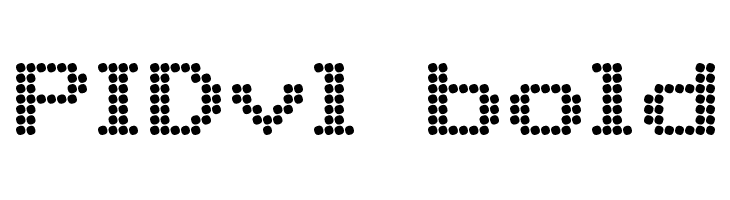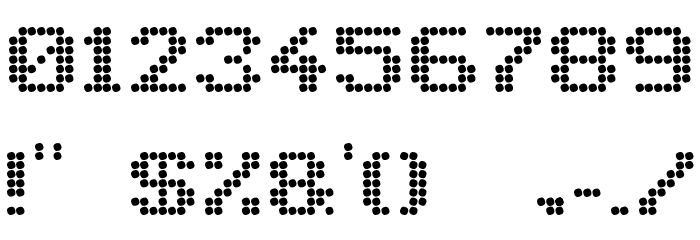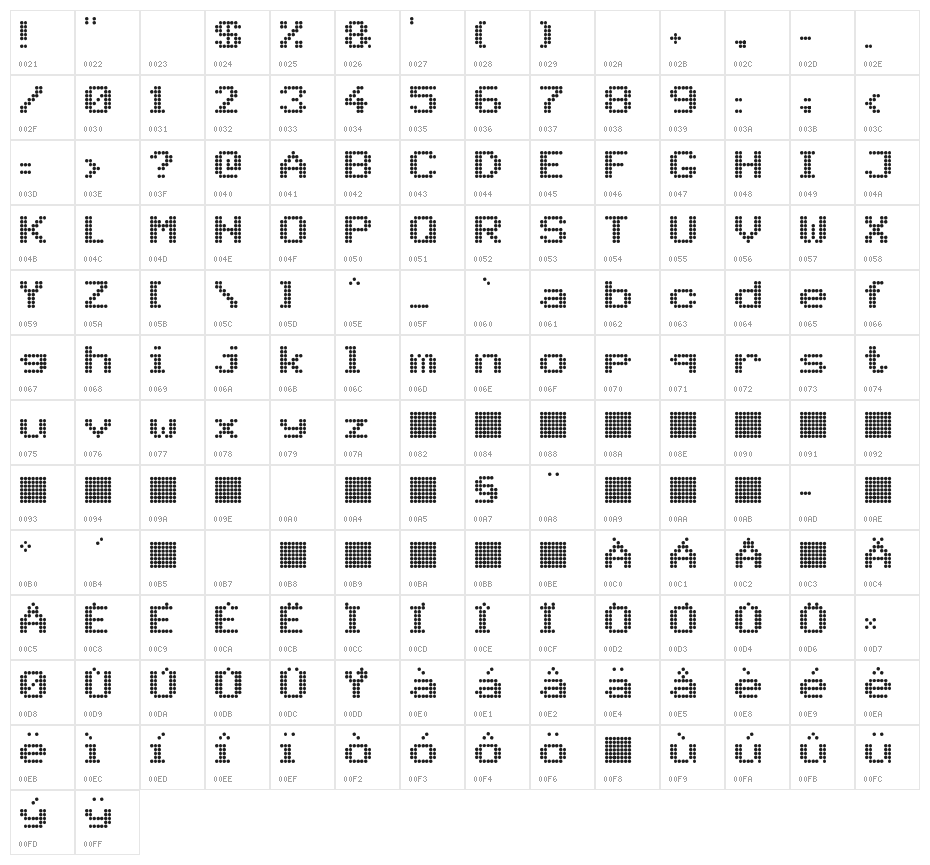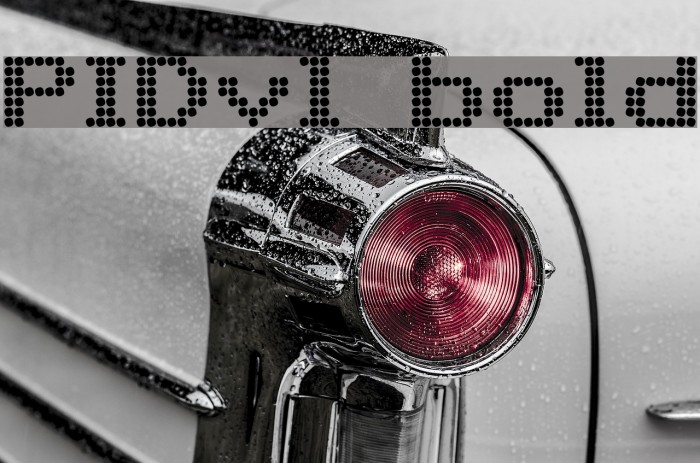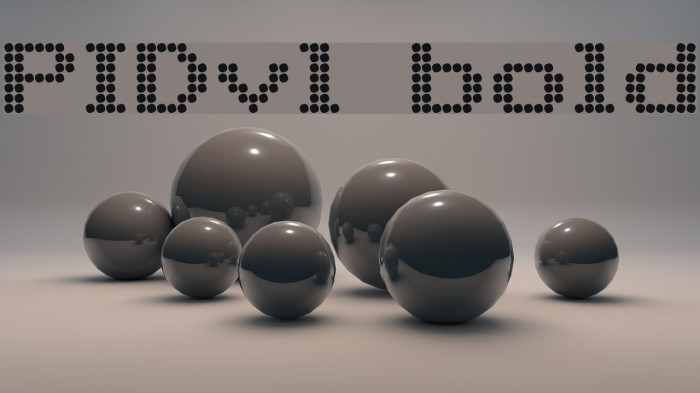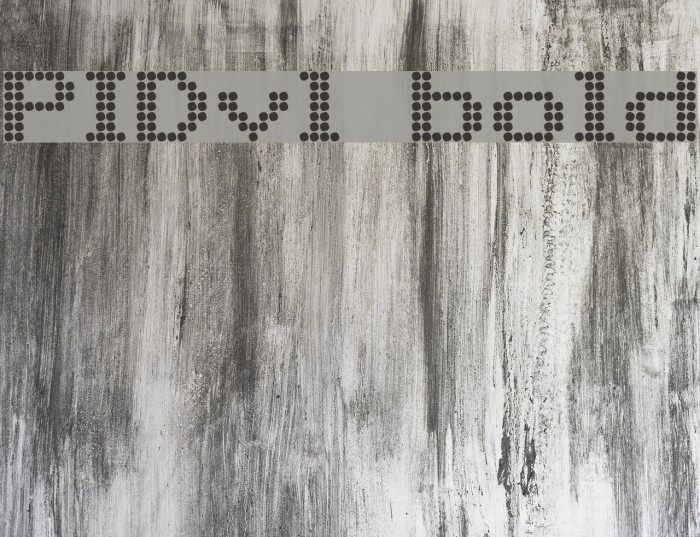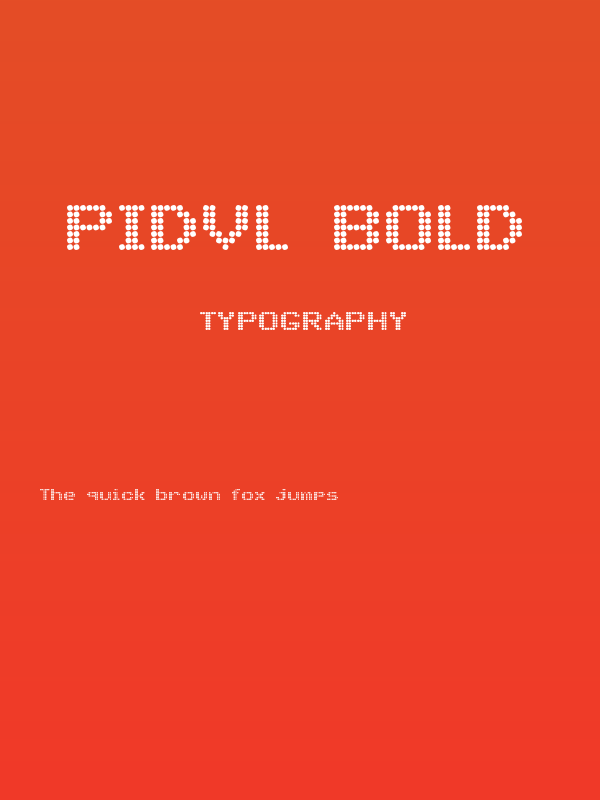
PIDvl bold Font
PIDvl bold Description
This font is a unique and creative design composed entirely of small, evenly spaced dots forming each character. The geometric arrangement gives it a digital and modern feel, reminiscent of LED displays or dot matrix printers. The uniformity in dot size and spacing provides a consistent and structured appearance, making it visually striking. Each letter and number is clearly distinguishable, maintaining readability despite the unconventional style. The font's playful yet technical aesthetic makes it suitable for projects that aim to capture attention with a futuristic or tech-inspired theme.